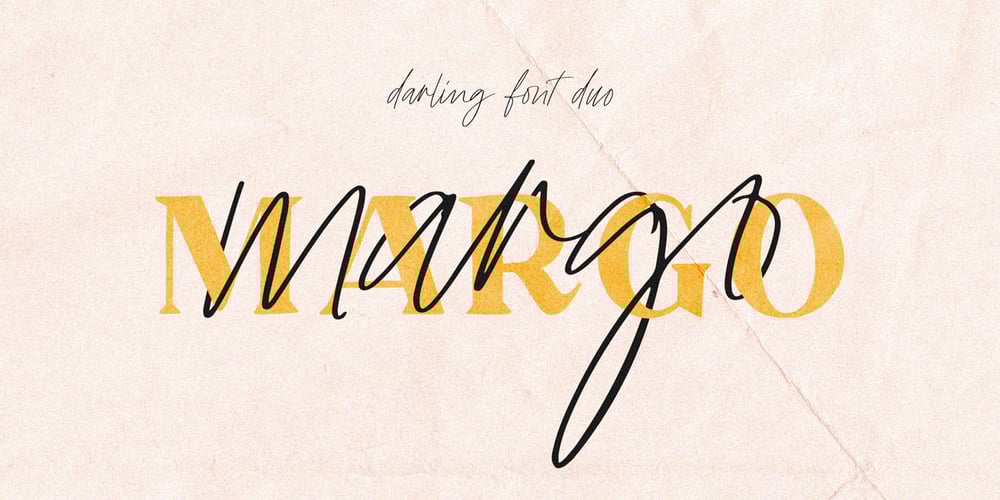
Margo Font Family was designed by Jen Wagner and published by Jen Wagner Co.. Margo contains 2 styles and family package options. Margo is a playful font duo that includes a signature script and a hand-drawn serif – already matched up and ready to be used together for your next design! You can see how Better Homes and Gardens used Margo throughout their October 2019 issue. FEATURES: Margo Script includes: • 108 ligatures, which will help make your text look even more hand-written • Alternate letters to help avoid duplicating letters in your words • Foreign language accents & characters for the international designer Margo Serif includes: • Alternate letters (the lowercase letters function as alternates of each uppercase letter!) • Foreign language accents & characters